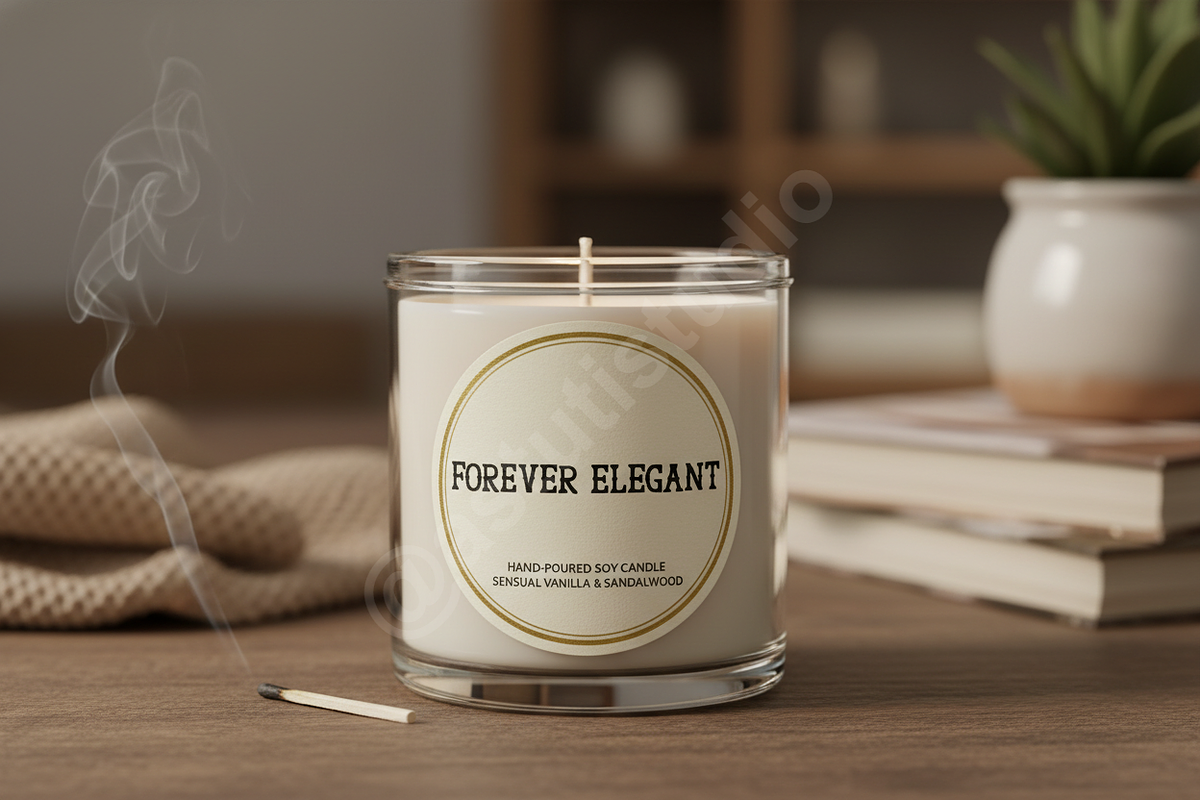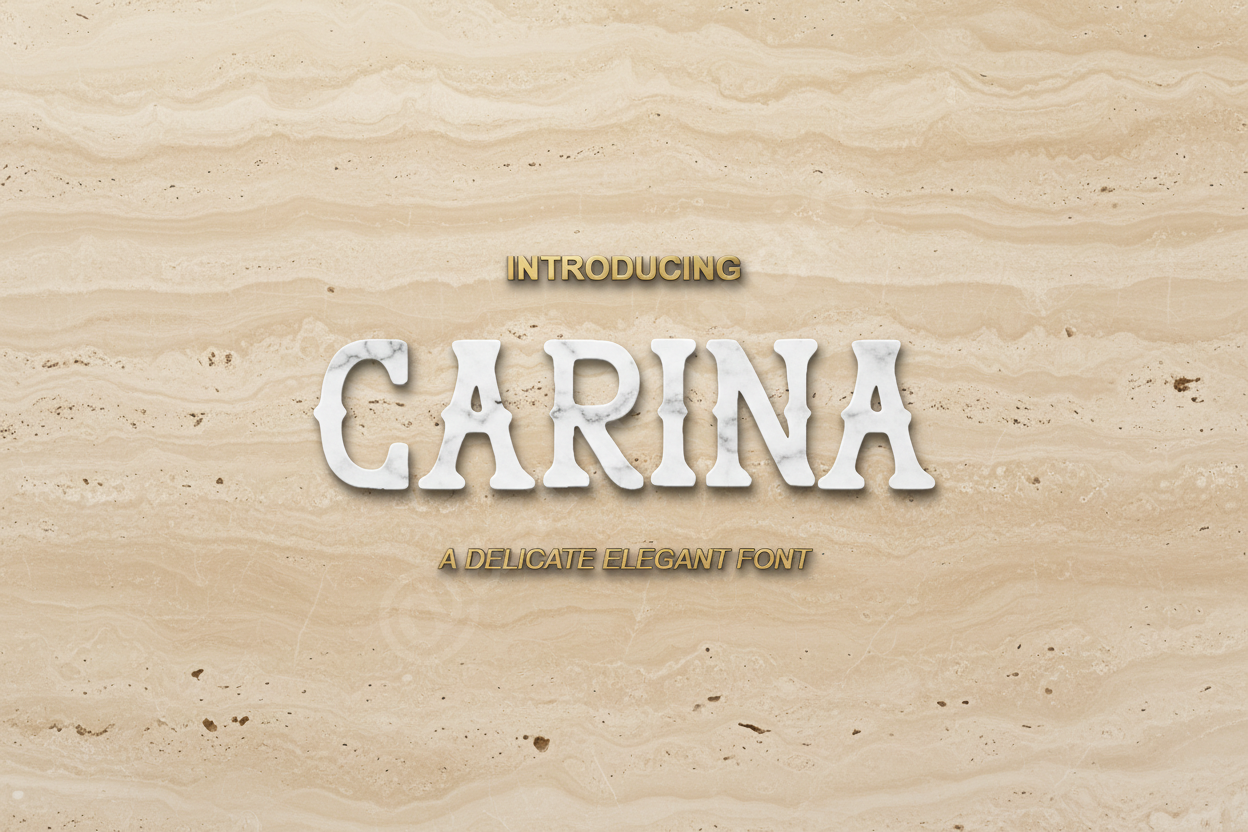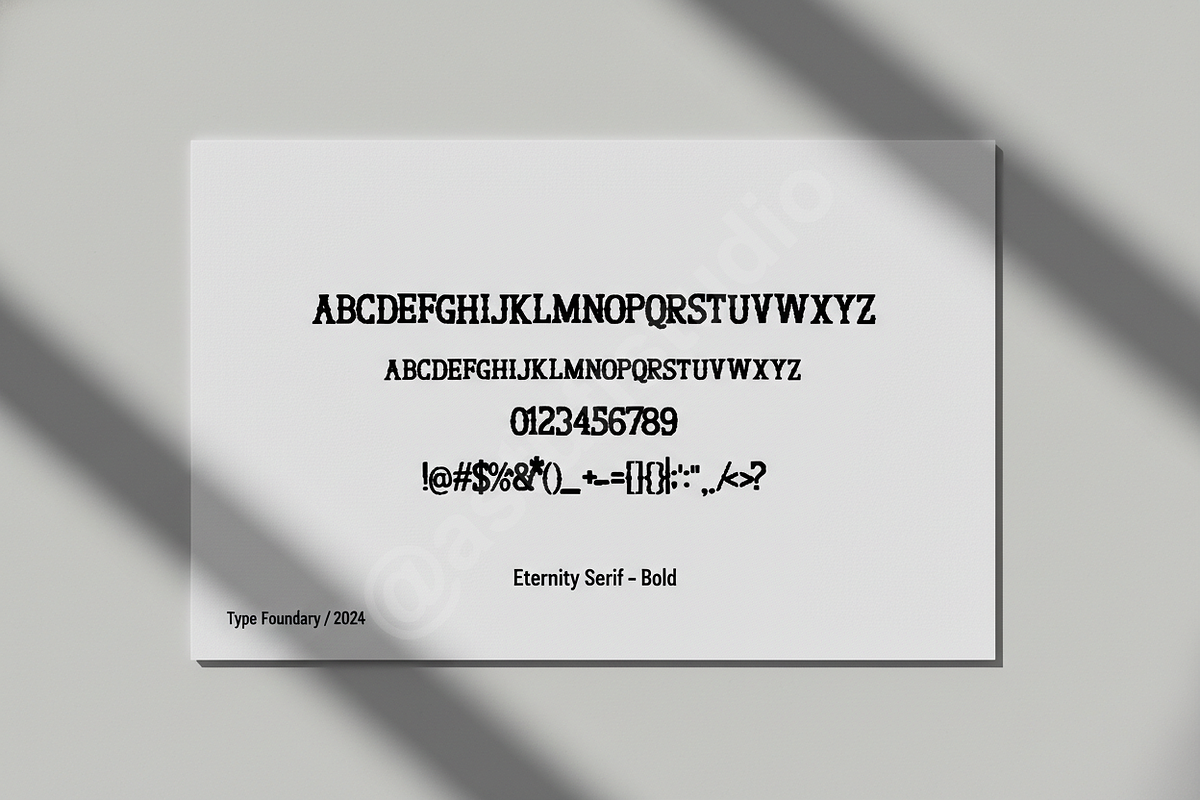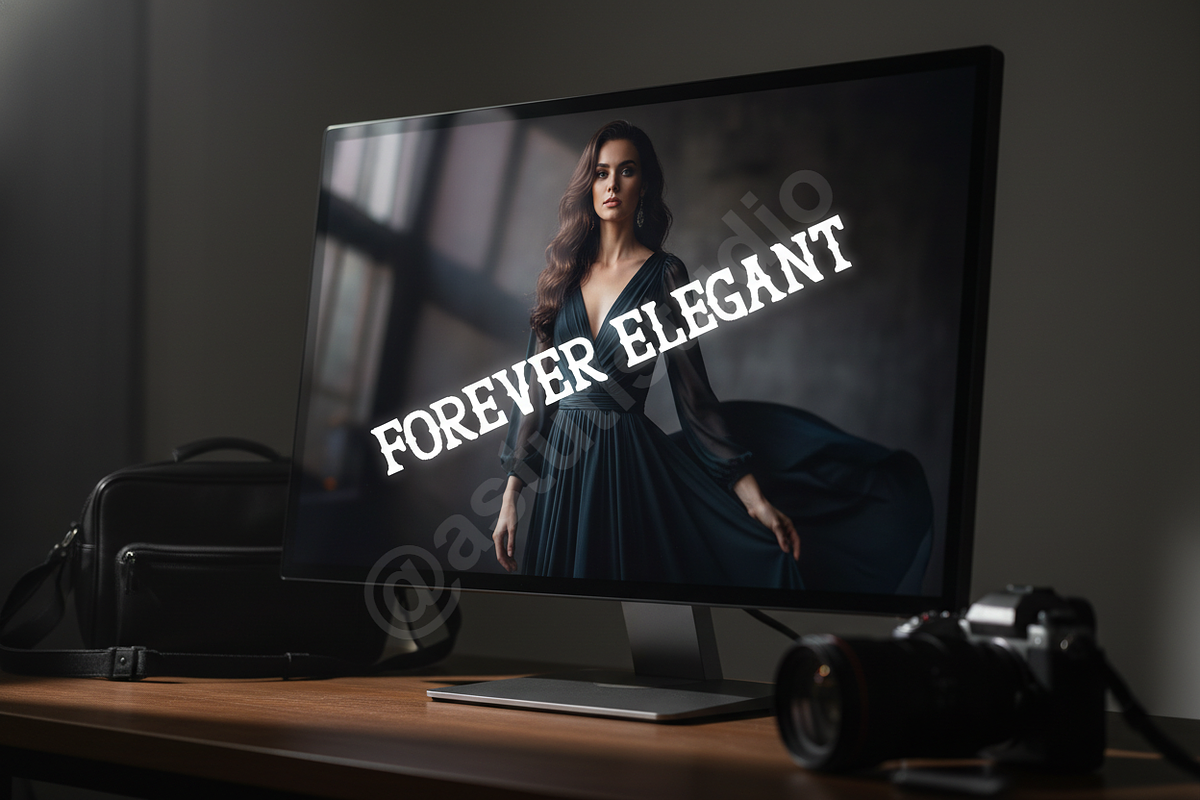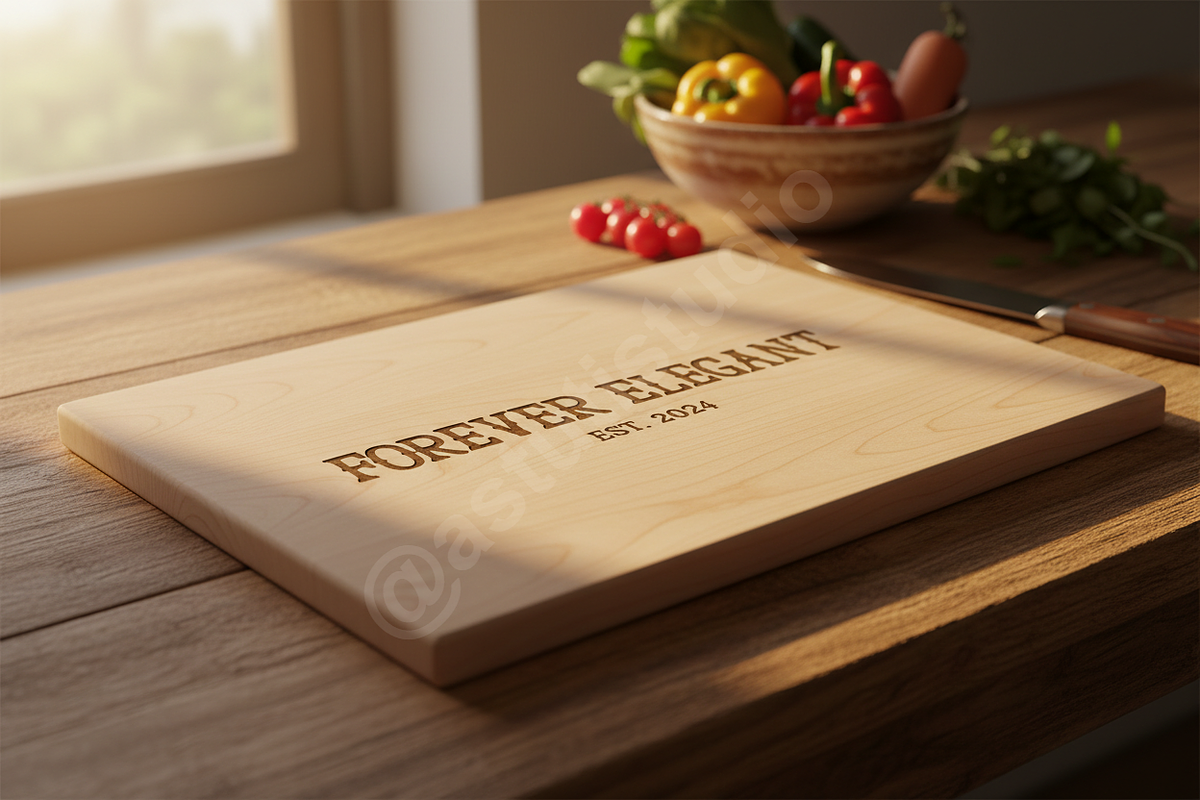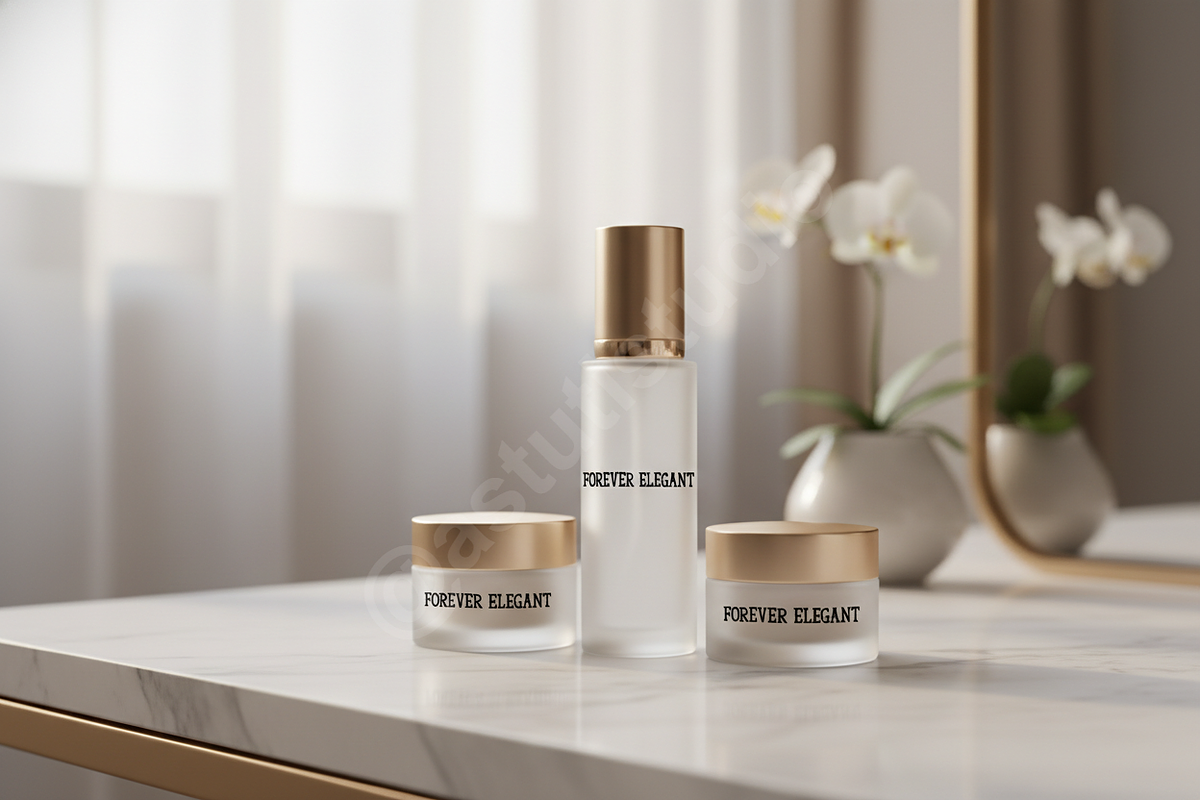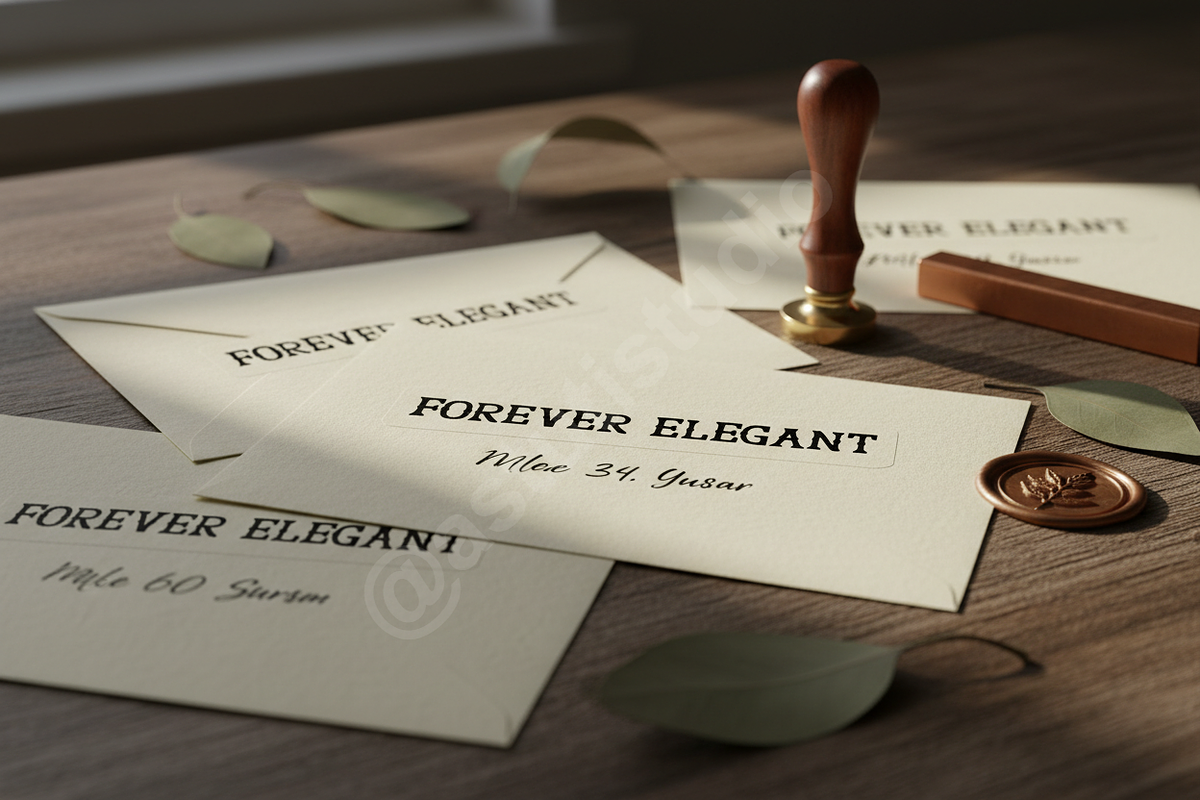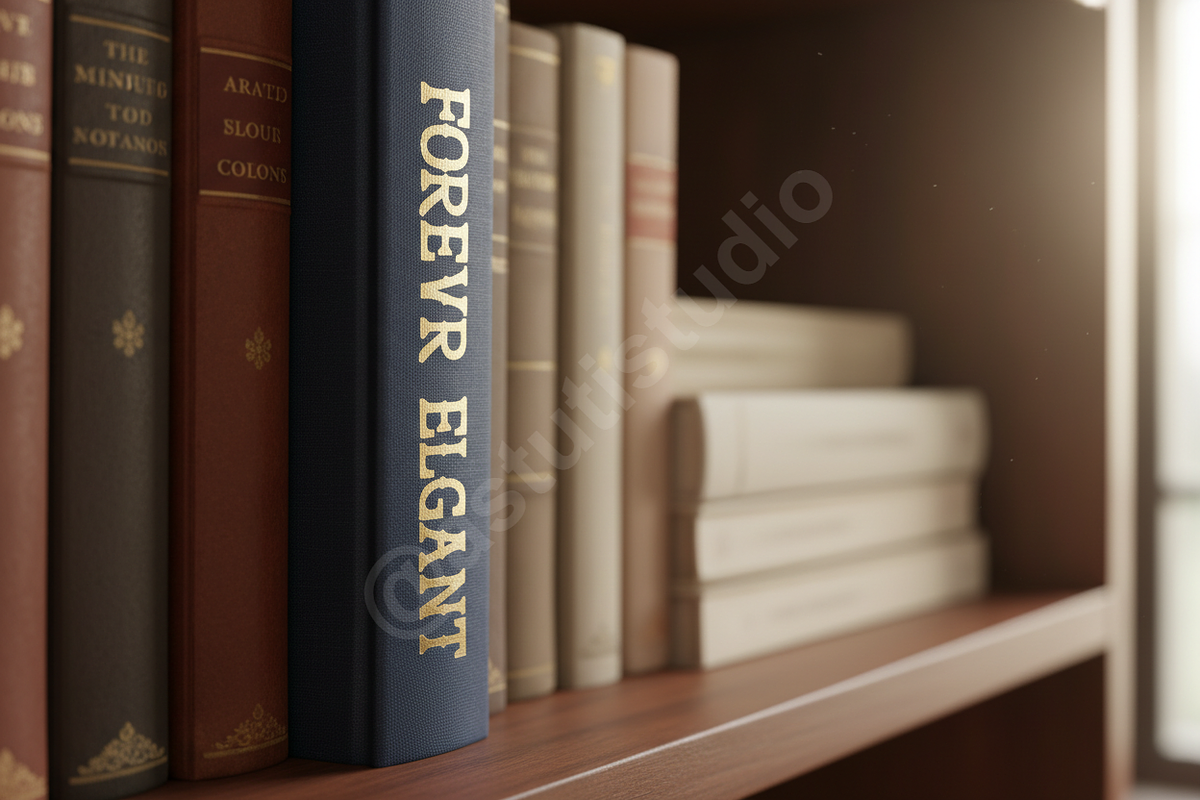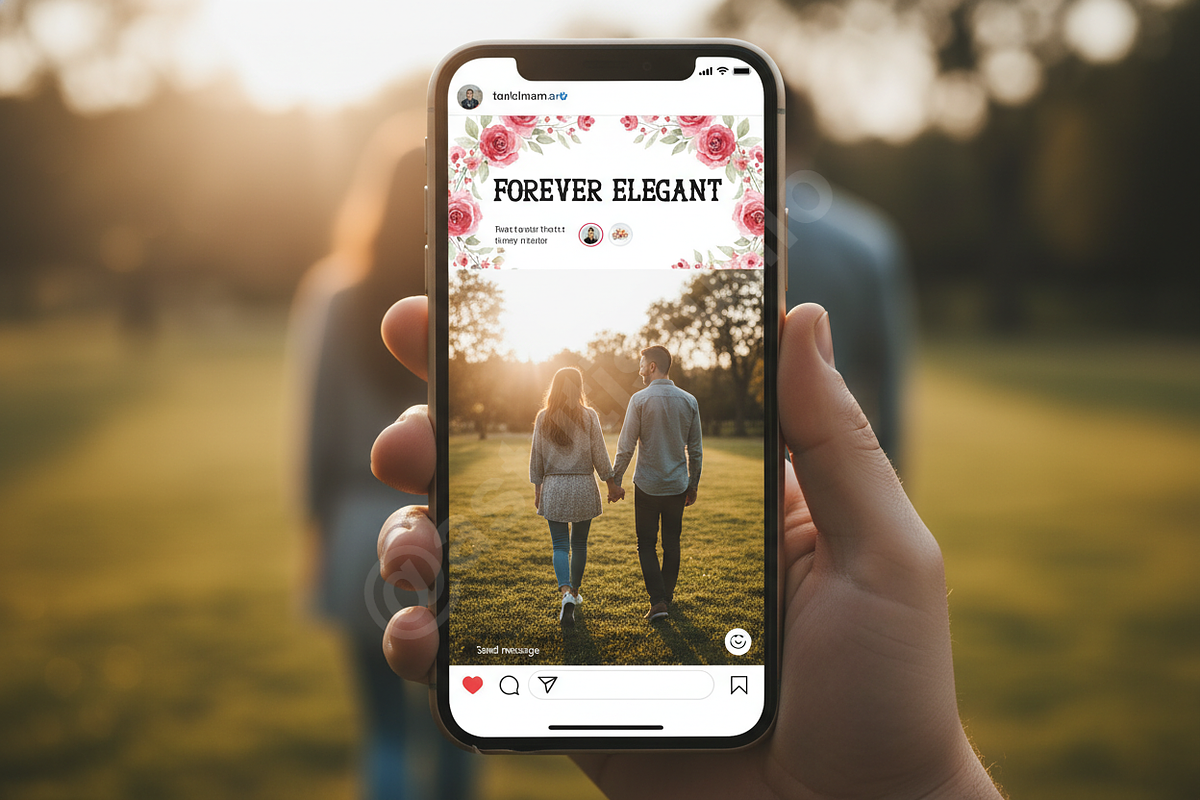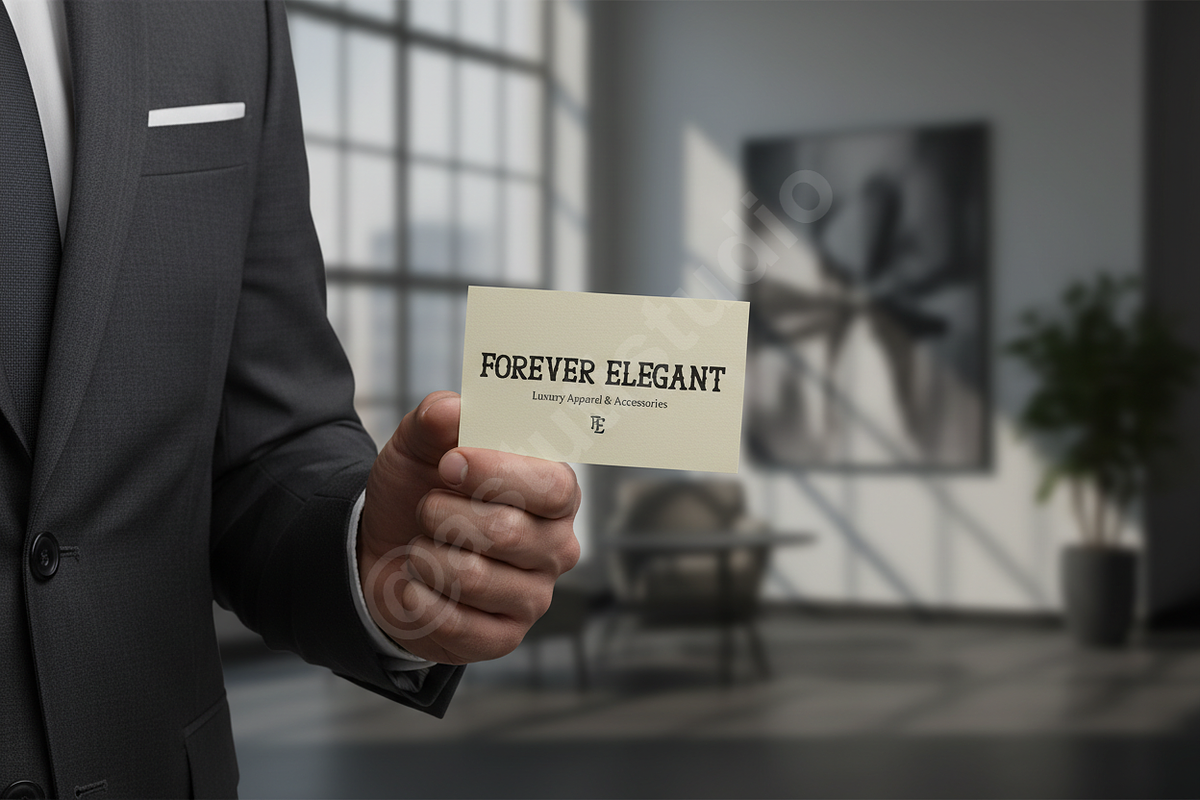
Carina Modern Luxury Serif Typeface
Introducing Carina, an exquisitely crafted modern serif typeface designed for sophisticated visual communication. Carina embodies timeless elegance with a contemporary edge, making it the definitive choice for projects demanding refinement and luxury. Its delicate curves and precise geometry ensure striking readability across both digital and print media, perfect for high-end branding, editorial layouts, and impactful social media campaigns.
CARINA TYPEFACE FEATURES
- Optimal Kerning: Professionally adjusted spacing for seamless flow and refined aesthetics.
- Versatile Weights: Designed to transition smoothly from bold headings to subtle body text.
- Crafted for Display: Exceptional performance in large titles, logos, and premium magazine spreads.